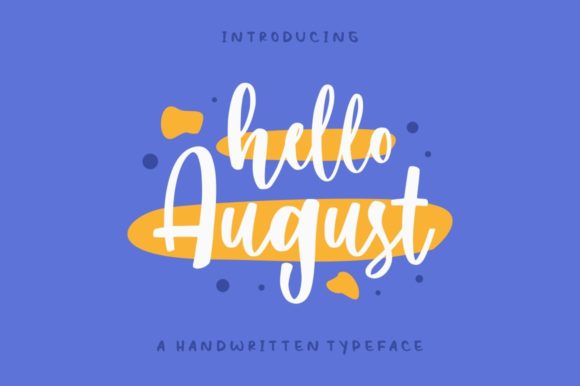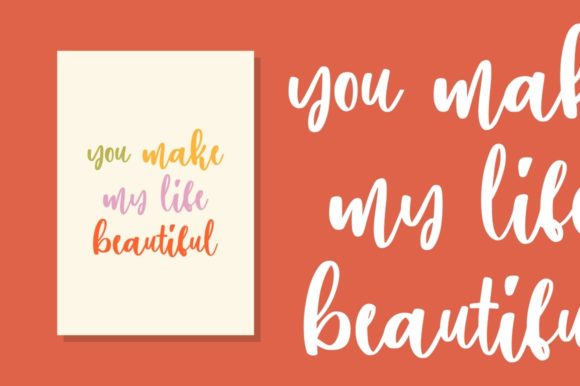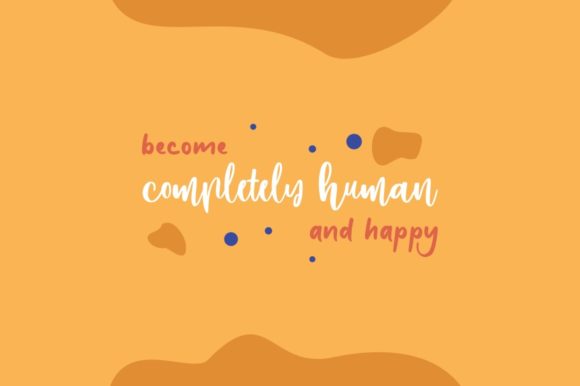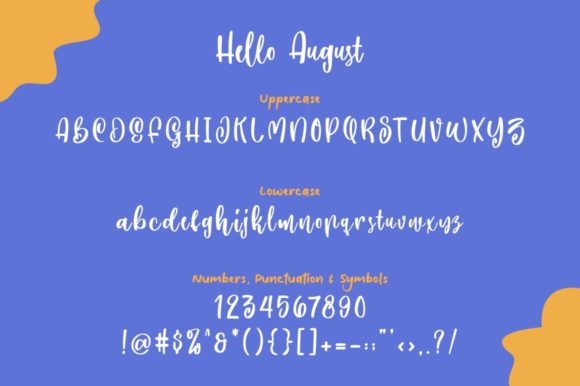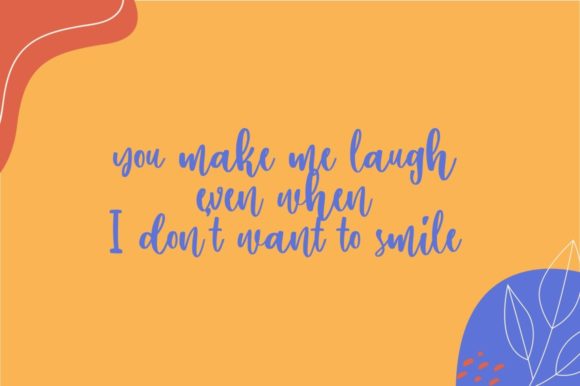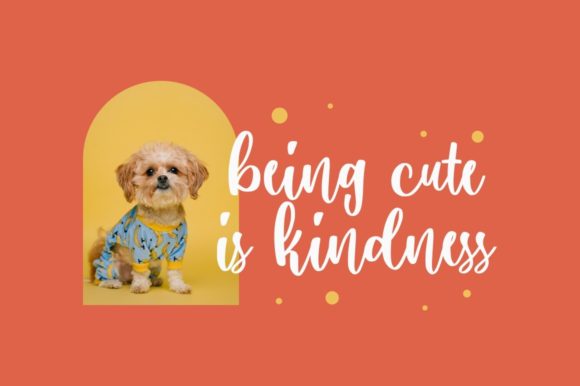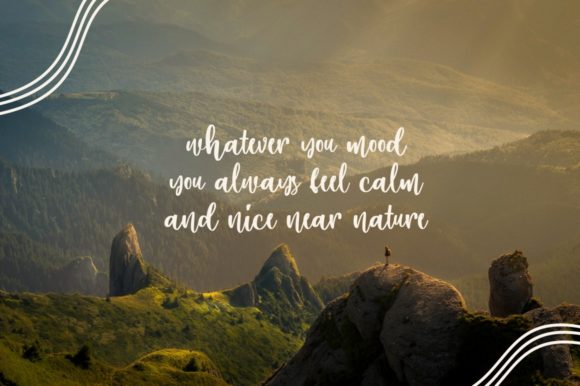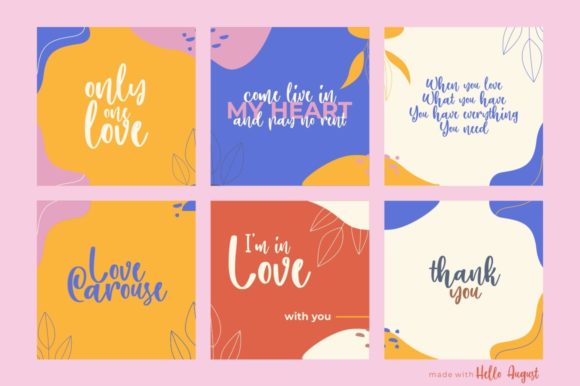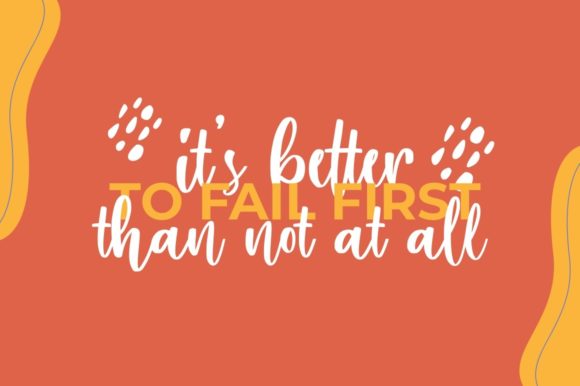
About Hello August Font
Hello August is a lovely script font featuring charming, playful characters that seem to dance along the baseline. Add this font to your most creative ideas, and notice how it makes them stand out!â¨